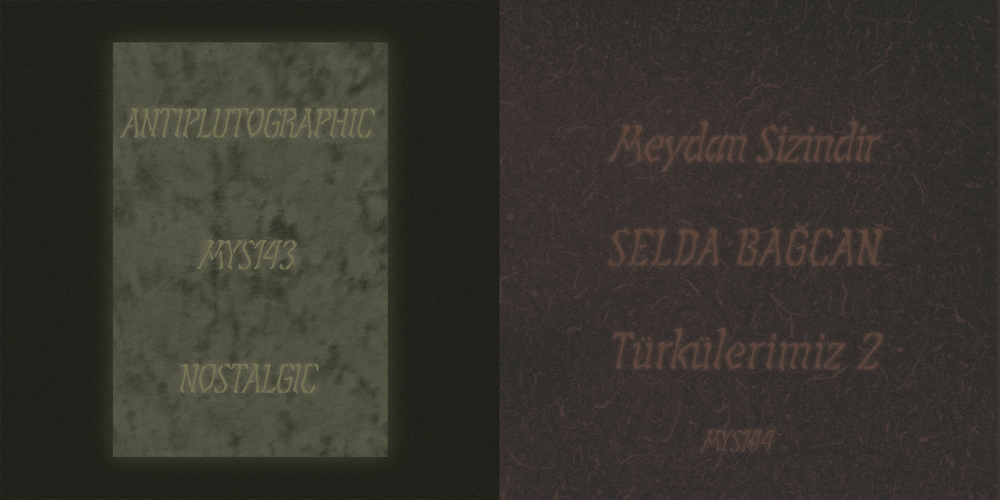
Interzone Font Family was designed by Caleb East and published by MYSTERIAN. Interzone contains 2 styles and family package options. This type crept up the sense that it was made in Eastern Europe by poorly trained urbanites from a crippled nation, or that it is the remains of a contemporary gothic (like Eckmann) stencil. The choice of what this type signifies is up to the public. Lately I like the idea of ‘putting on’ (in McLuhan’s sense) a genre of idea that is somewhat different from my tradition’s beliefs, and fitting a core category of that toward a teleological/eschatological advantage. Therefore postmodernist/apocalyptic carelessness (which I may ‘put on’ by using this type) is how I abstain from the cravings of immortality, or more so that wanting it is pointless. It’s stands as memento morí; that I will have to die someday. I have to become less, He must become more.Of course, Interzone may signify a classic Joy Division track from Unknown Pleasures as well as the Cold Warish ongoings of conflicted eastern European life. I considered naming this Lunik 9.